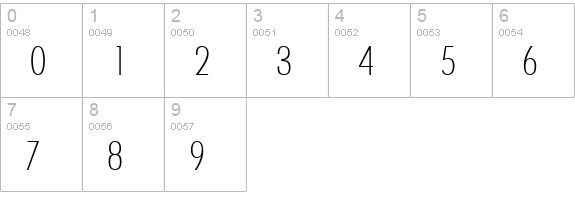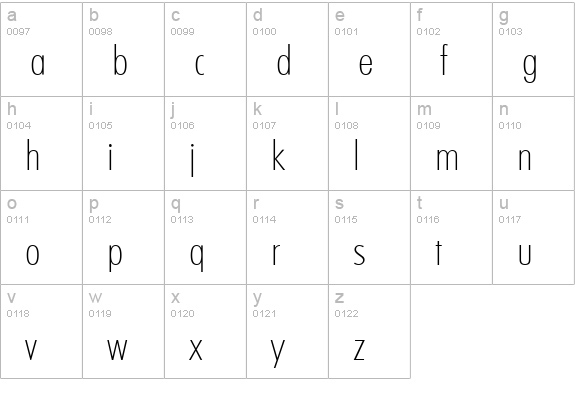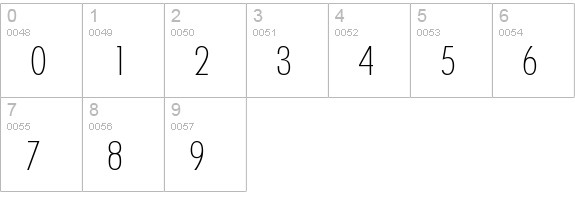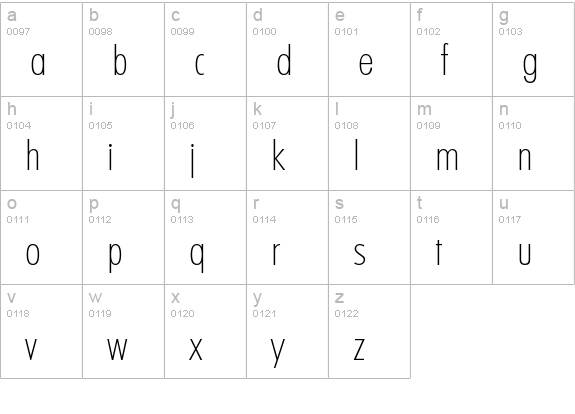
LimerickCdSerial-Xlight-Regular is the standard, neutral variant in the LimerickCdSerial typeface family \xE2\x80\x94 well suited to general body text, paragraphs, and standard typographic work.
LimerickCdSerial-Xlight-Regular is a sleek and elegant font that exudes modern sophistication. Its delicate lines and subtle curves make it perfect for adding a touch of refined style to any design project. Whether you're creating invitations, branding materials, or website content, this font will elevate your work to the next level. The best part? LimerickCdSerial-Xlight-Regular is completely free to download at FontsMarket.com. You can access this beautiful font without any cost, making it an excellent choice for budget-conscious designers and creatives. Don't miss out on the opportunity to enhance your projects with this stunning typeface - download LimerickCdSerial-Xlight-Regular today and take your designs to new heights!